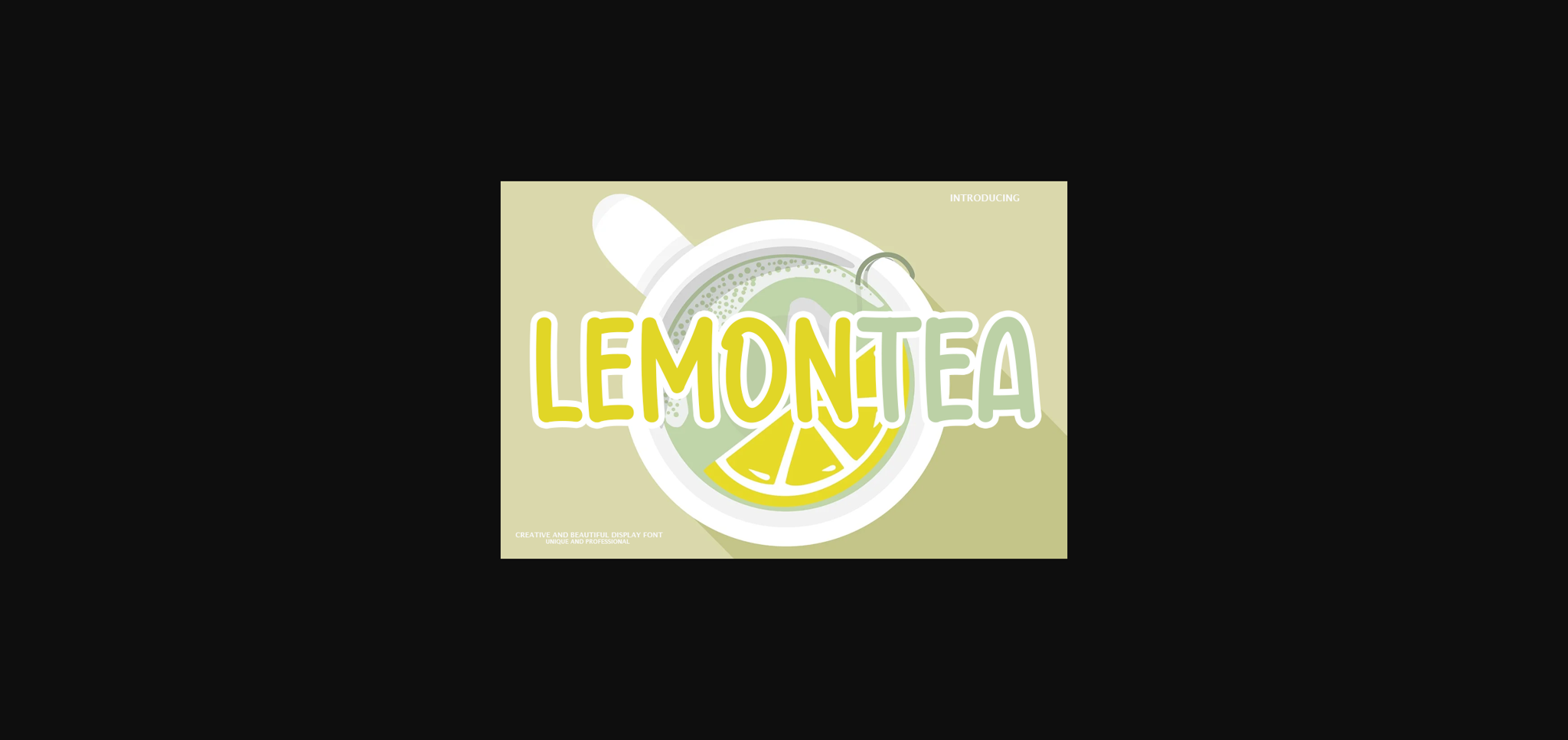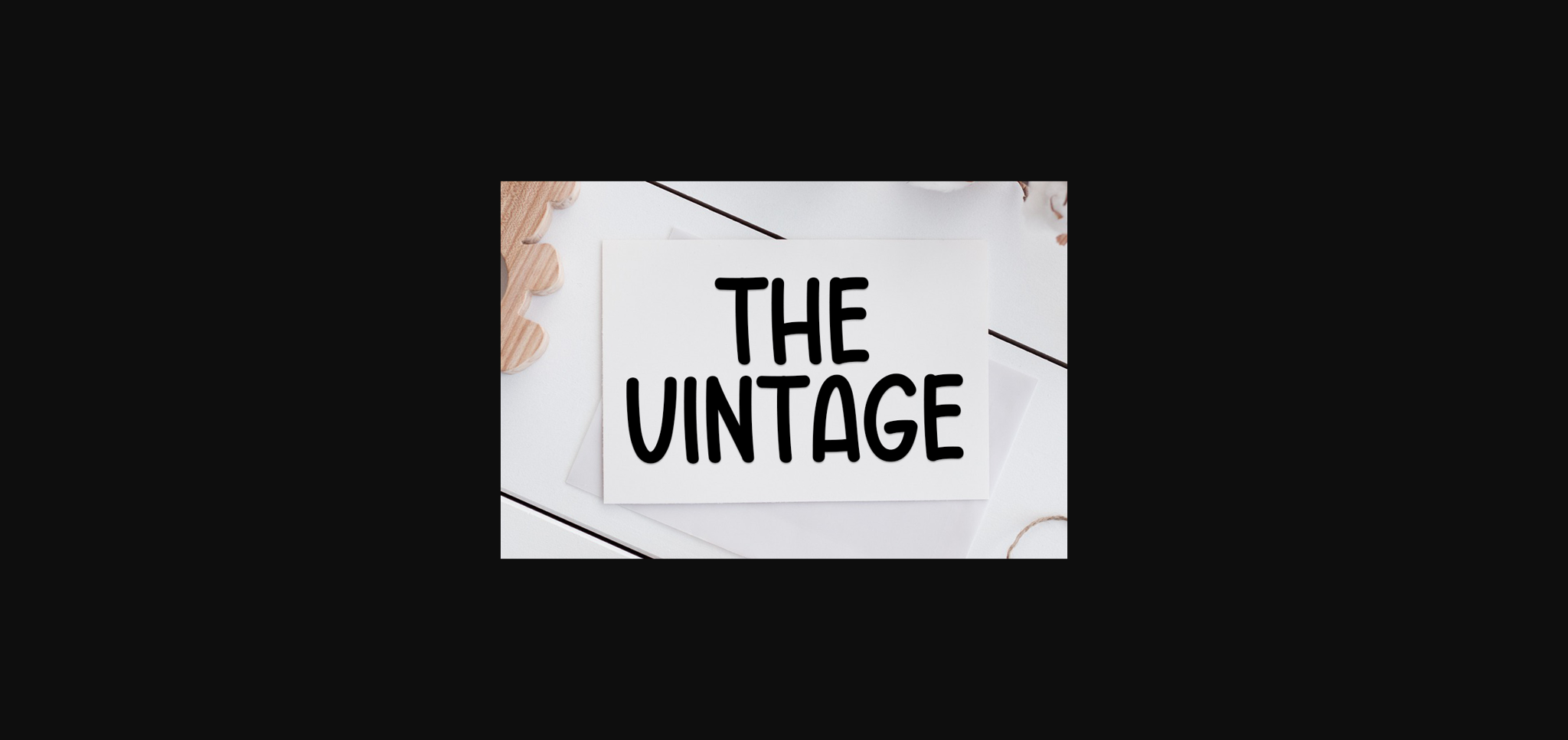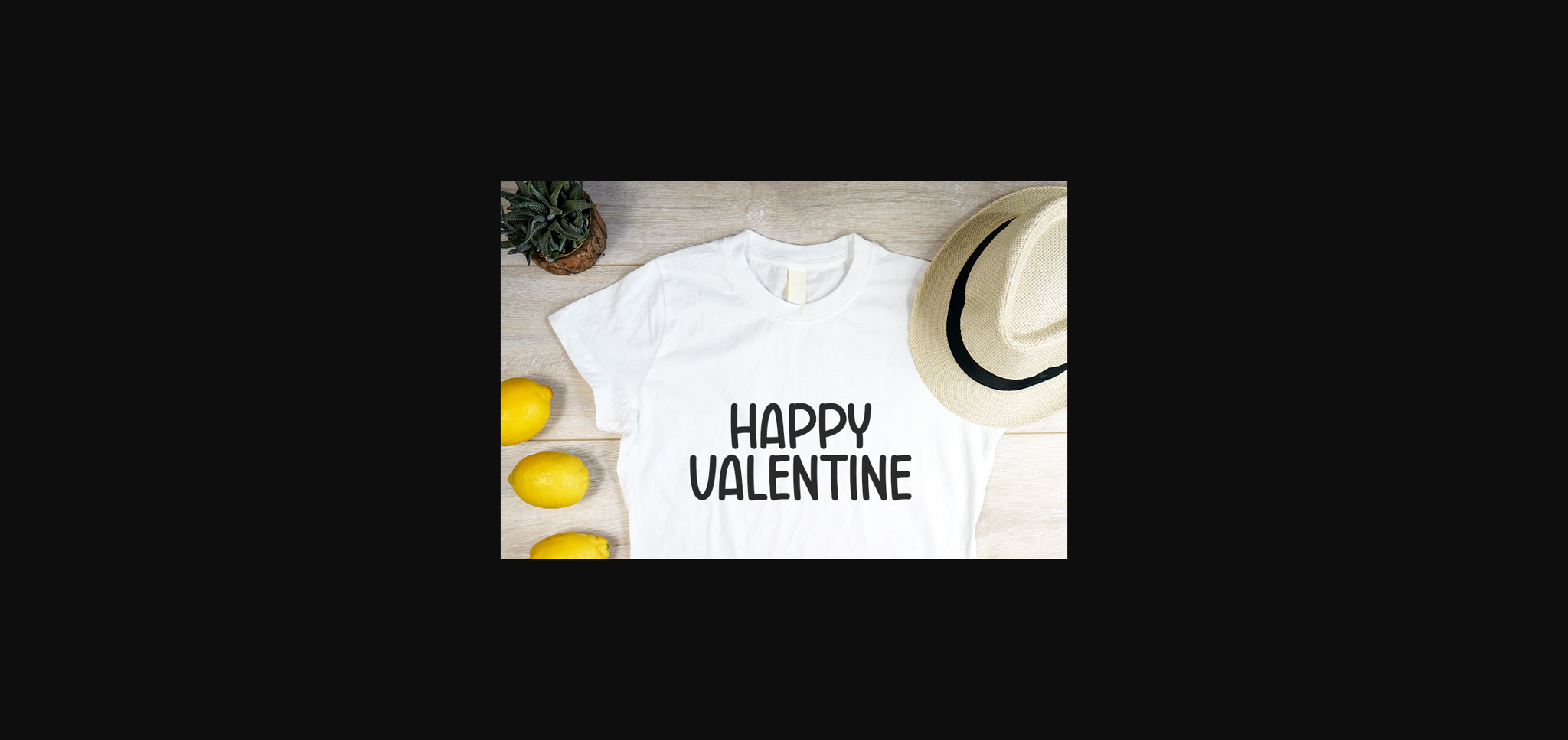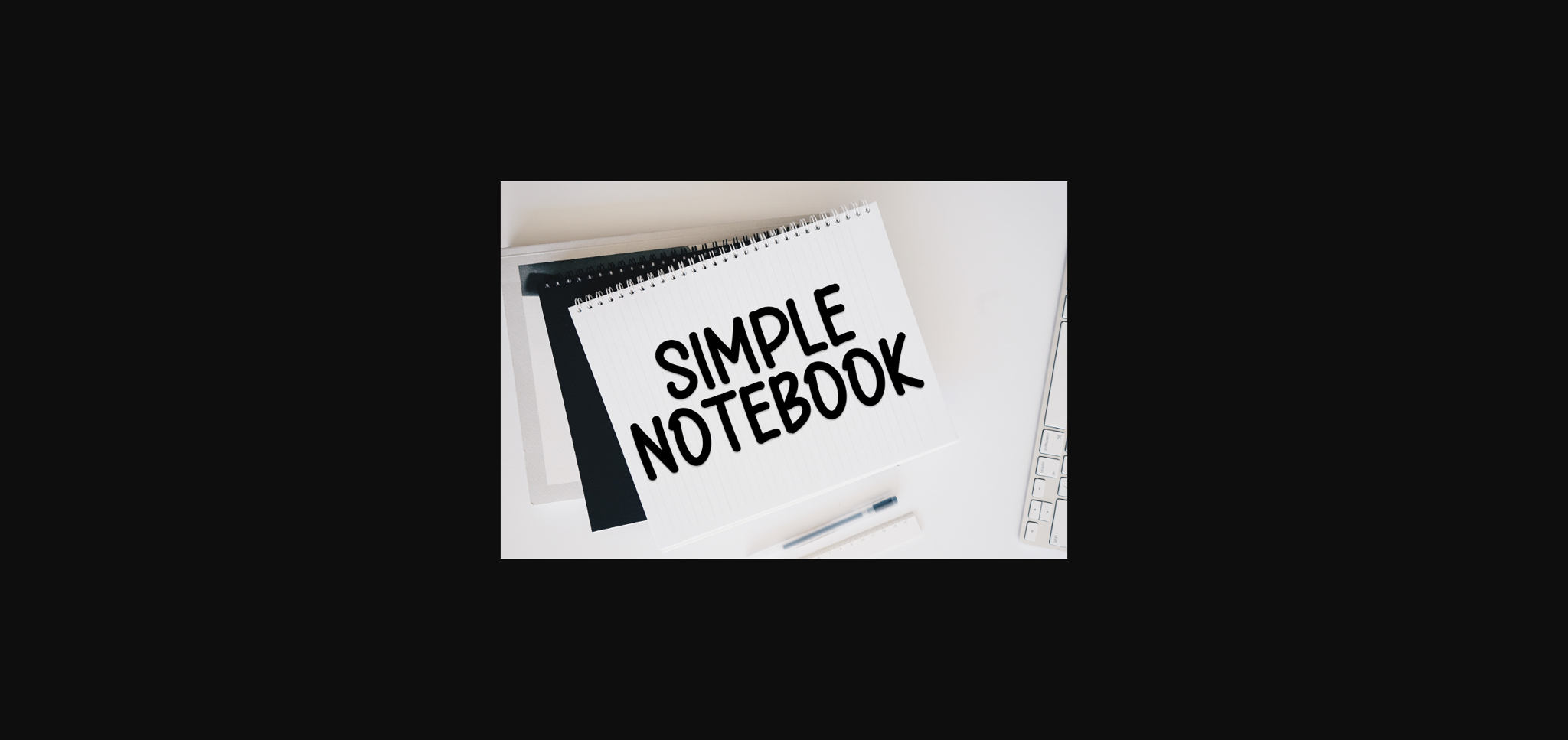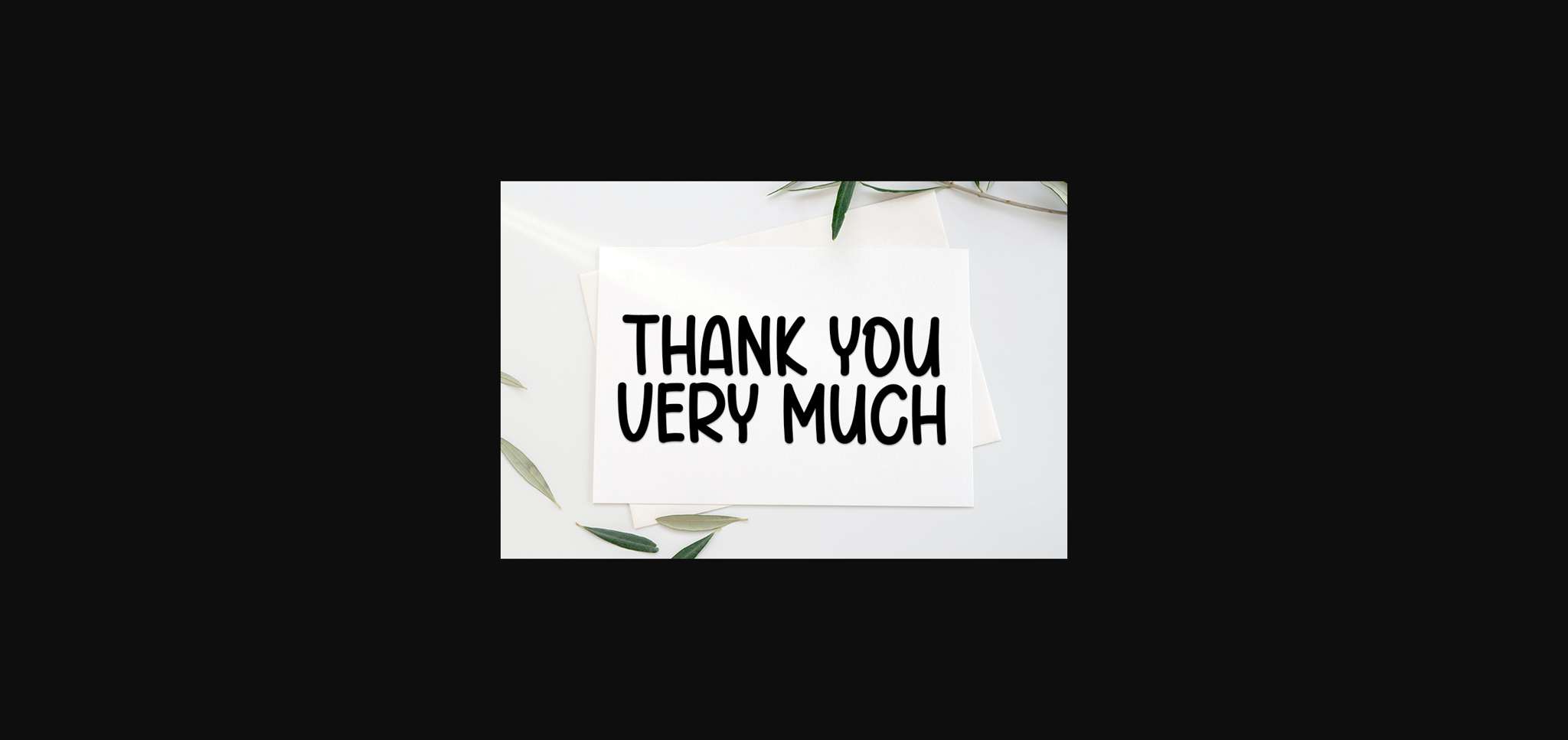
HomeSans Serif FontsLemontea Font Sans Serif Fonts Lemontea Font FacebookTwitterPinterestWhatsApp 1 of 7 ... Lemontea Font Poster 2... Lemontea Font Poster 3... Lemontea Font Poster 4... Lemontea Font Poster 5... Lemontea Font Poster 6... Lemontea Font Poster 7... About Lemontea Font Lemontea is a cool and modern sans-serif font. Whether you’re using it for crafts, digital design, presentations, or creating greeting cards, this font has the potential to be your go-to font, whatever the occasion. DOWNLOAD NOW People also explored Odeion Font Ureticon Font Child Font Cegadip Font Heather Navy Bella Canvas 3005 Mockup Honeygrapple Font Lovers Outline Font Silver Pen Script Font My Honey Font 253 0 TagsLemontea Font Previous articleBarbie FontNext articleHello Holiday Font LEAVE A REPLY Cancel reply Comment: Please enter your comment! Name:* Please enter your name here Email:* You have entered an incorrect email address! Please enter your email address here Website: Save my name, email, and website in this browser for the next time I comment. Personal Use Free Kellana Personal Use Free Read more about this font Archipellago Personal Use Free Read more about this font Cottage Personal Use Free Read more about this font Green Farmhouse Personal Use Free Read more about this font BLOG Free Fonts Risk: Why Free Fonts Can Be Dangerous for Designers Free Fonts Risk: Why Free Fonts Can Be Dangerous for Designers Using free fonts is a common practice in web and graphic design. However, the... Exploring Font Trends Transform Your Website: Elevate Your Typography with 7 Best Web Font Generators Elegant Wedding Invitation Fonts – Handwritten & Script Fonts